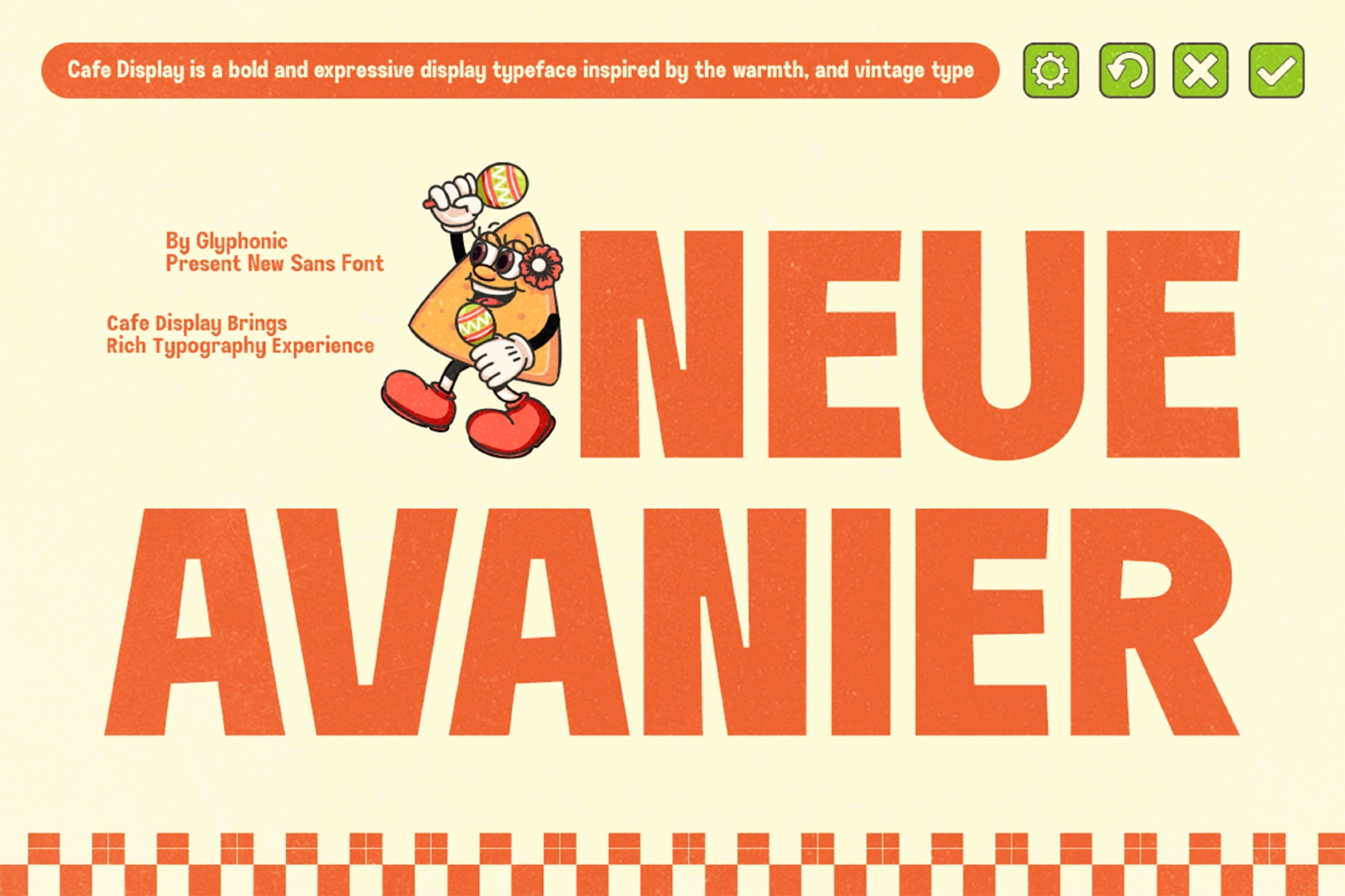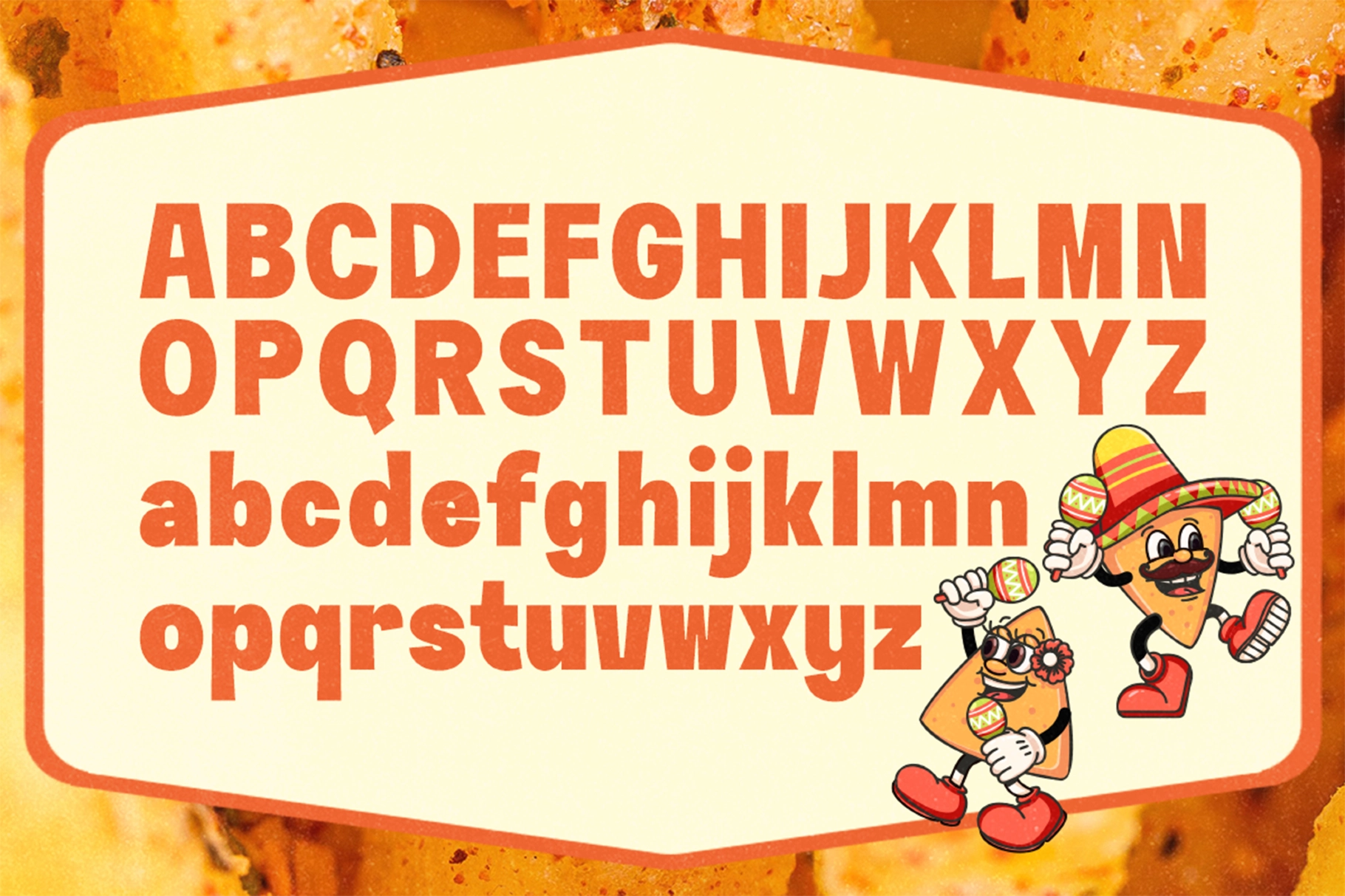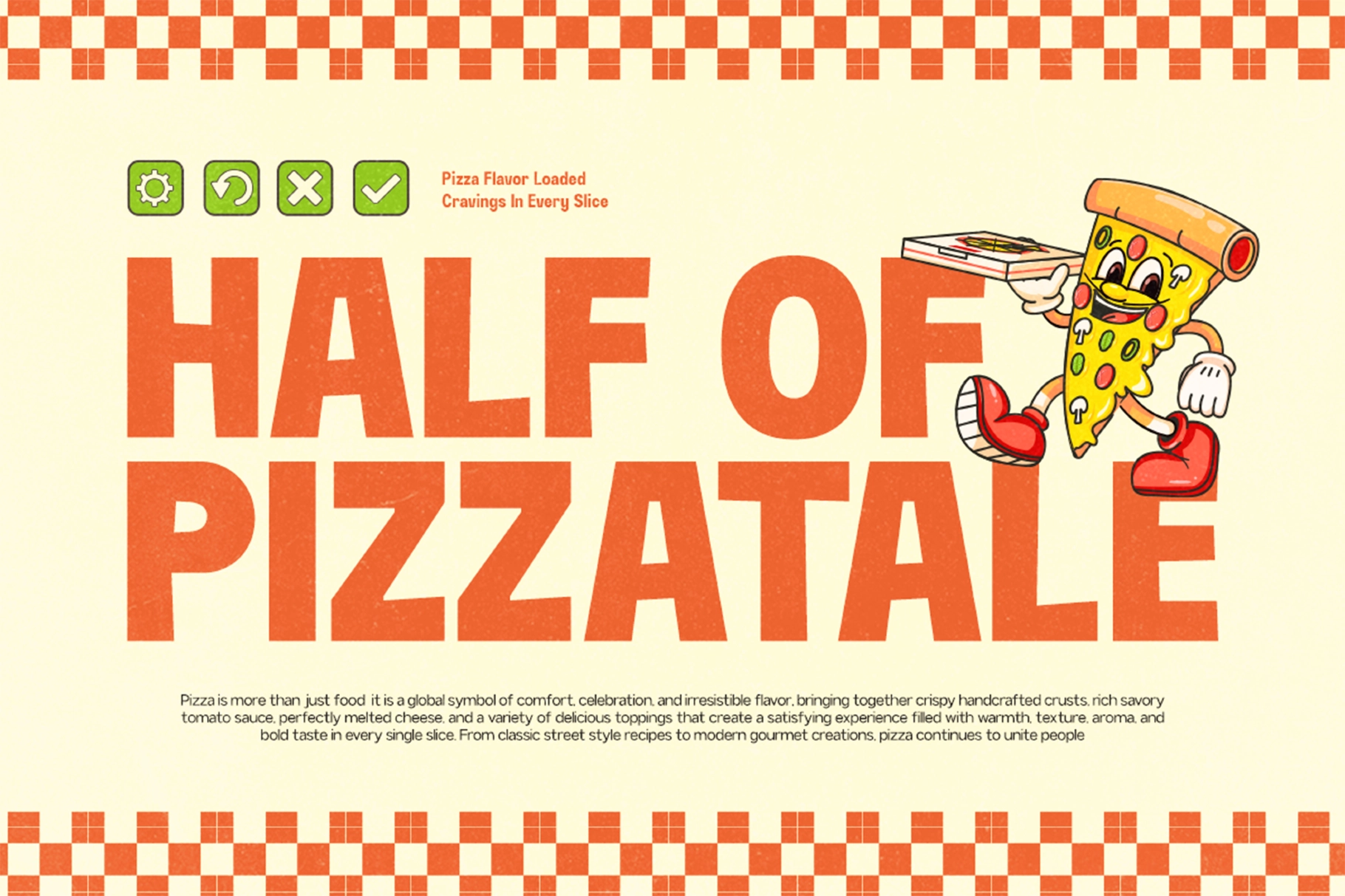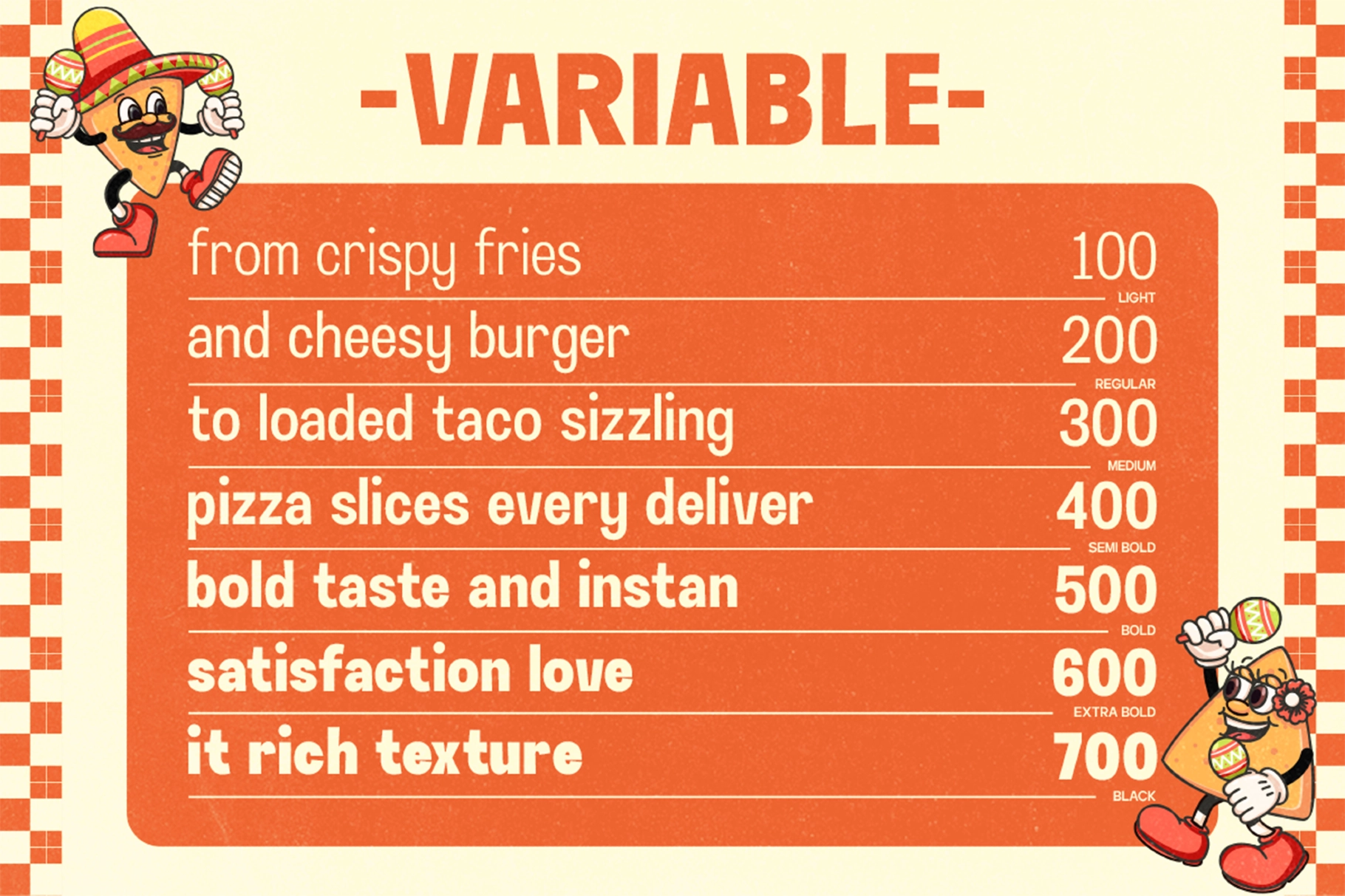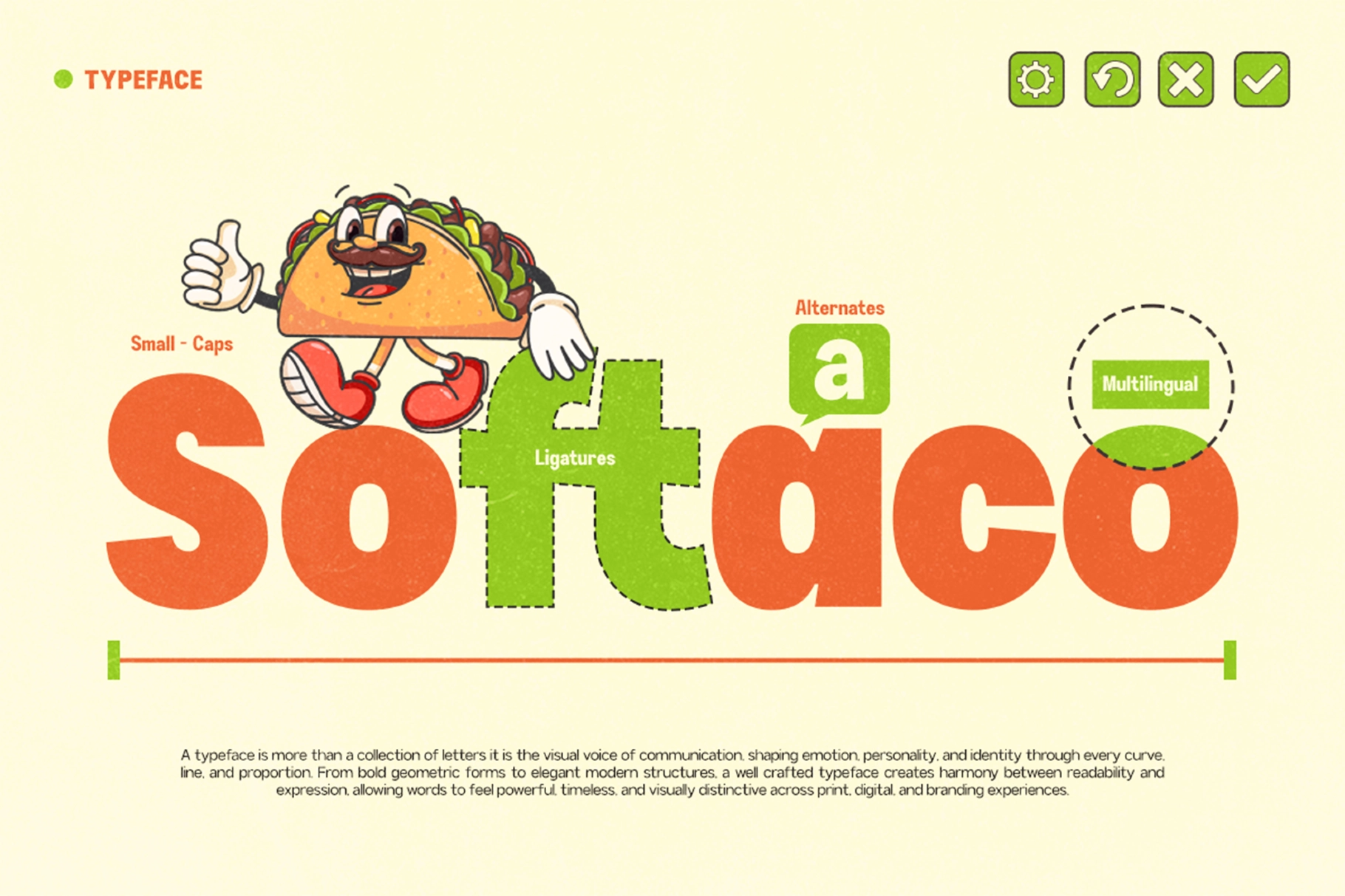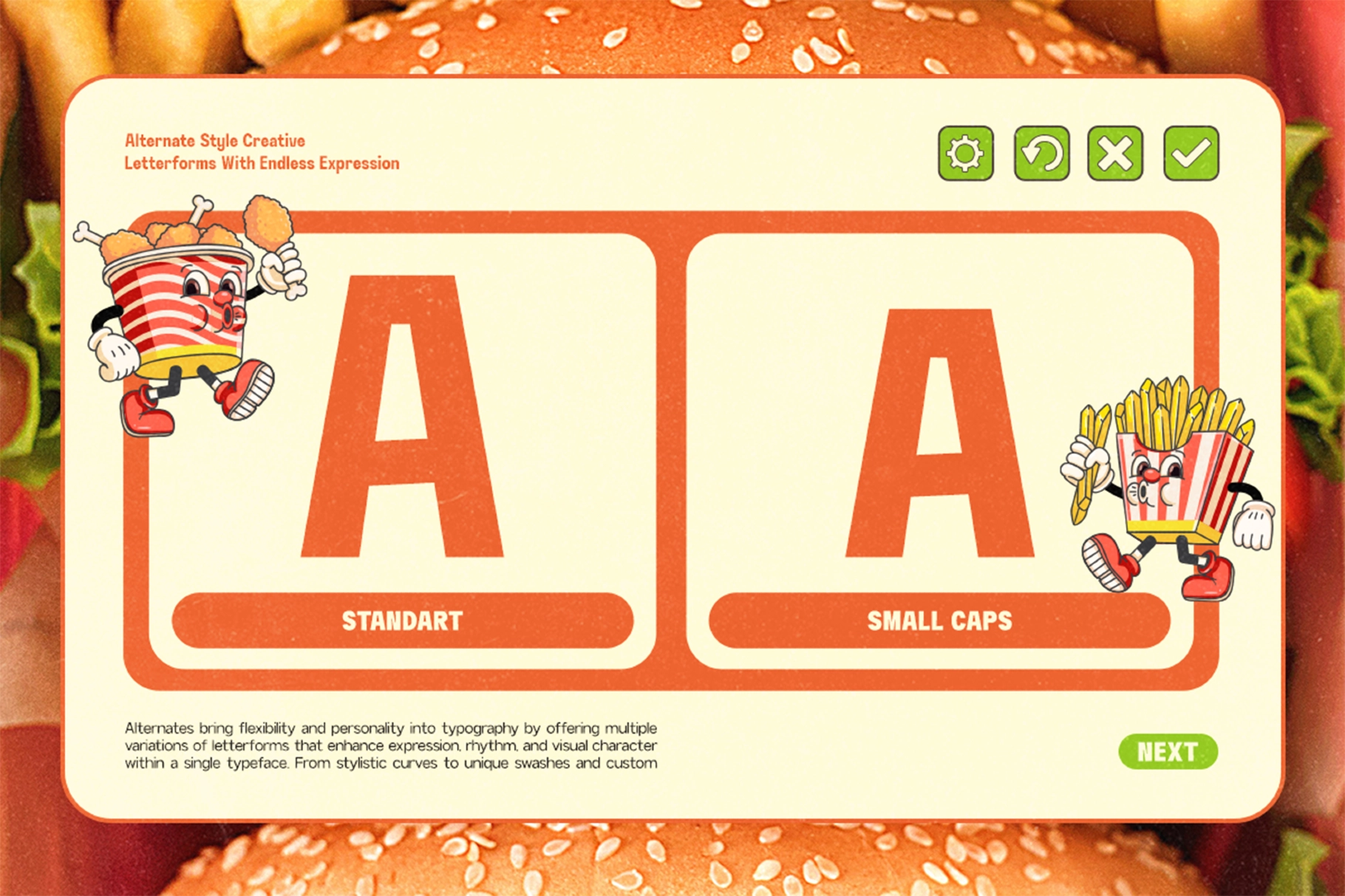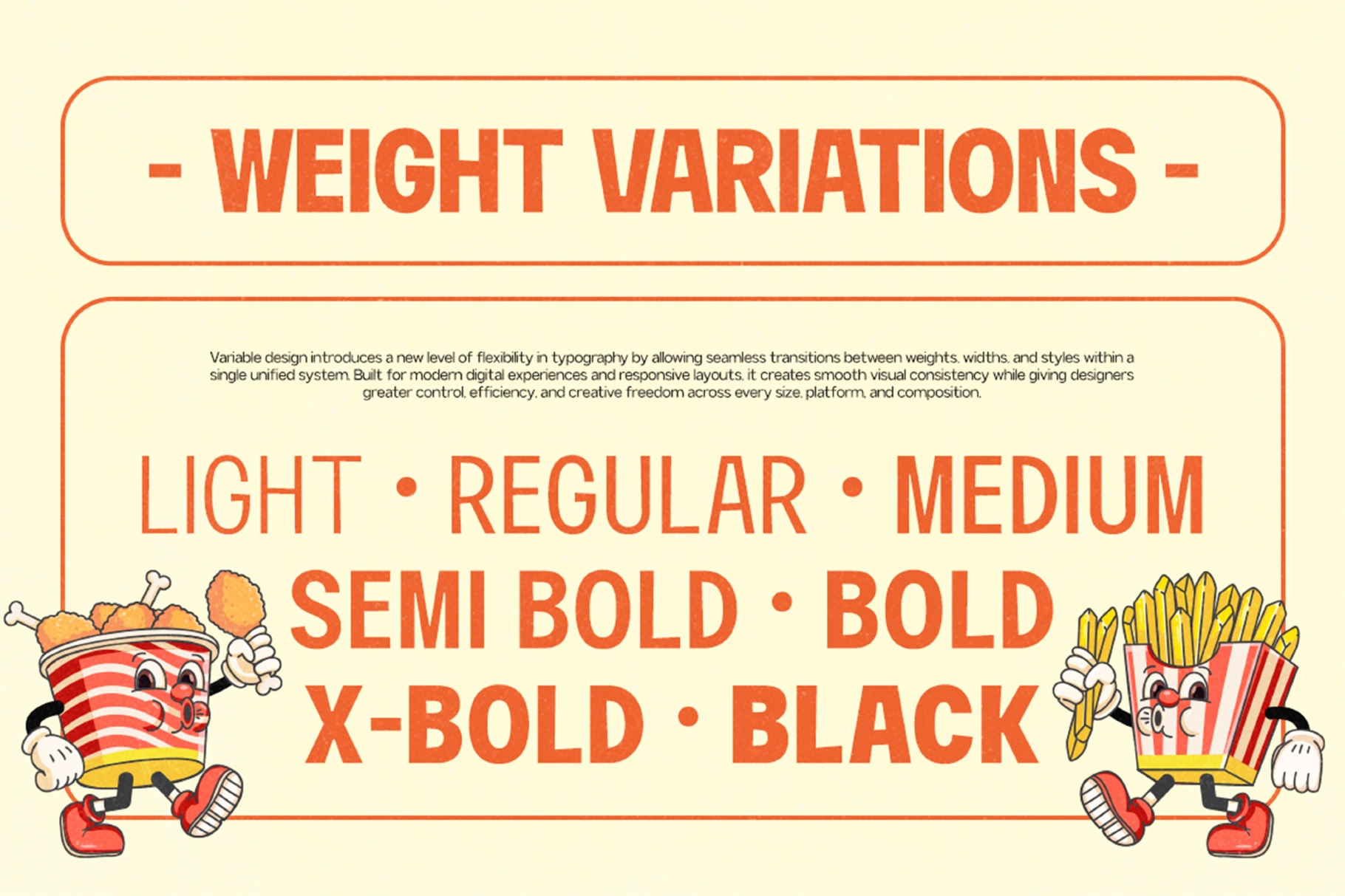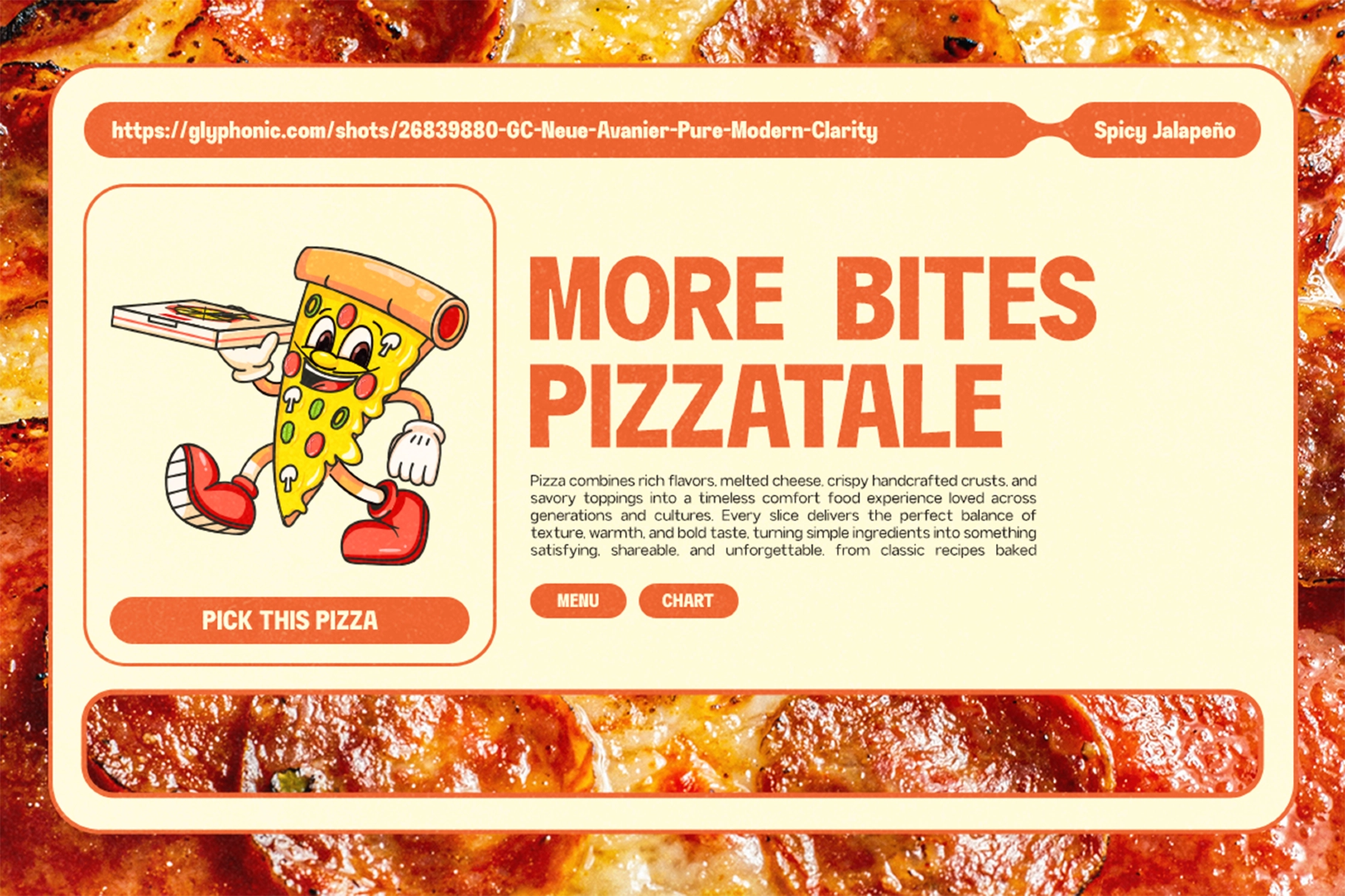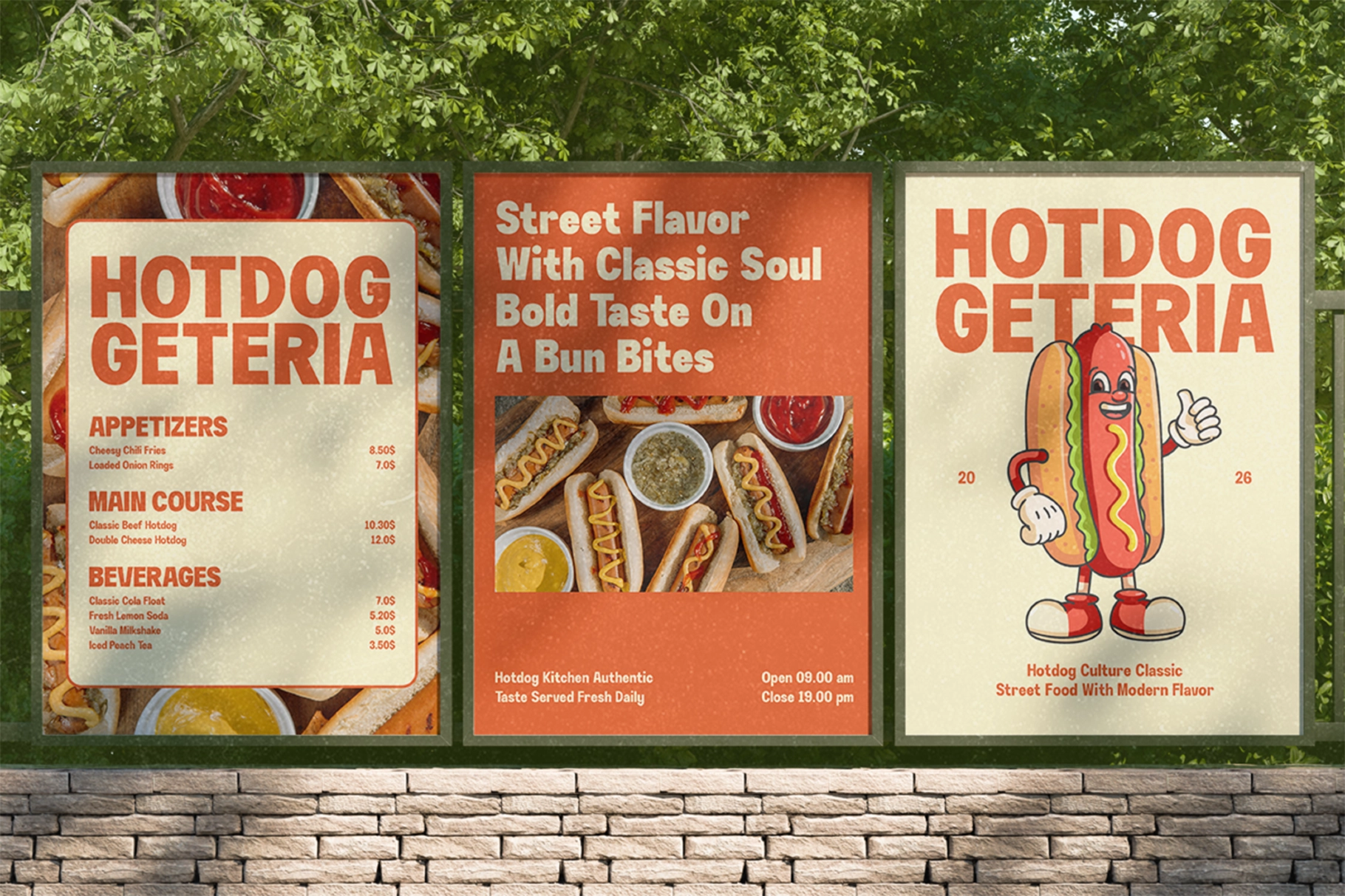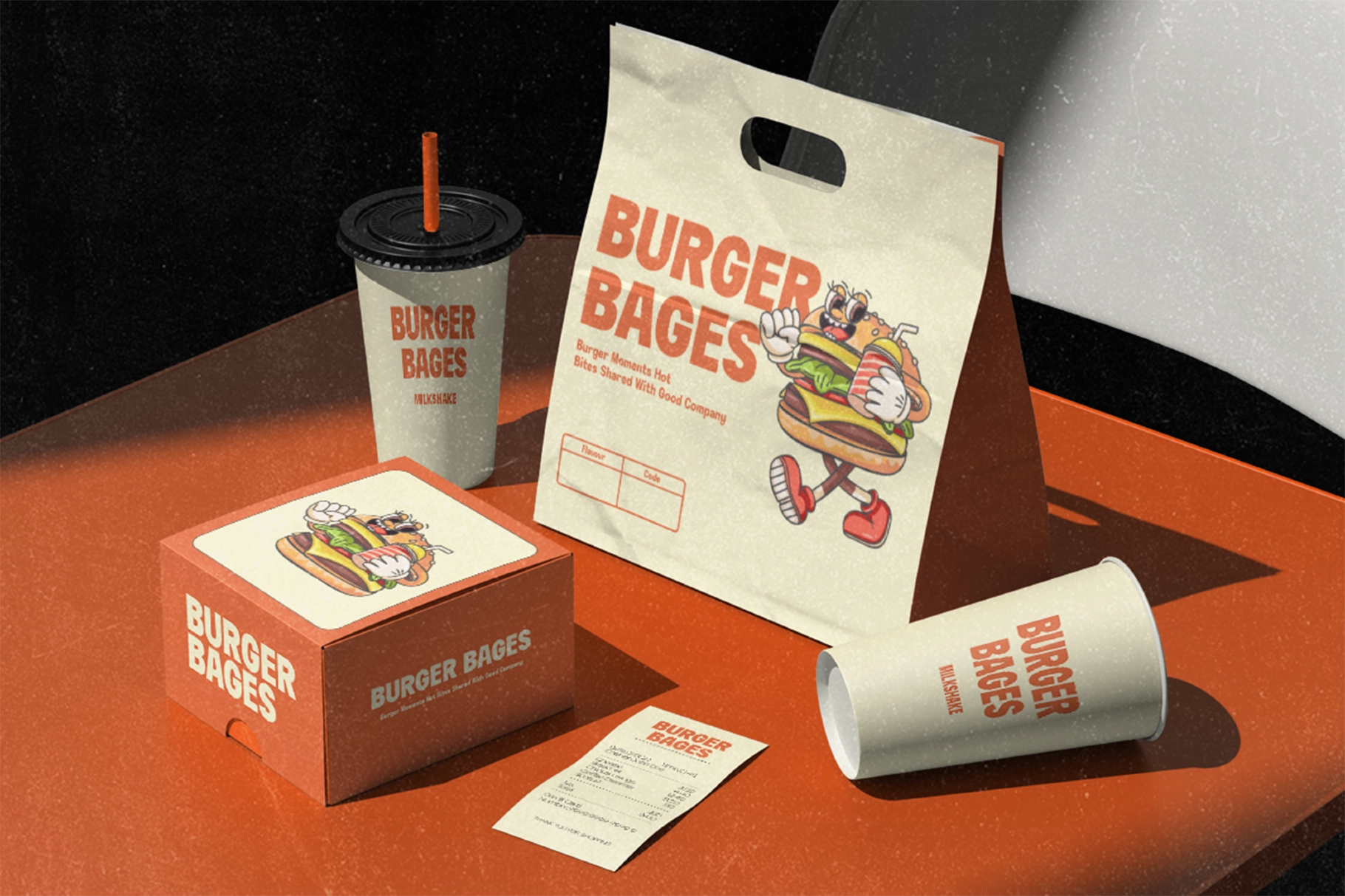
GC Neue Avenier - Bold Display Sans Font
Neue Avanier pulls its energy from vintage diner signage and hand-painted café marquees — thick, oversized letterforms with a geometric backbone and rounded corners that keep the weight friendly instead of heavy. This bold display sans font holds an even, confident stroke across every character, so headlines land with graphic force without turning stiff.
Neue Avanier works best set large, where the rounded weight and even rhythm carry a headline on their own. Use it for café and diner branding, food packaging, menu boards, pizza and snack logos, food truck signage, poster and flyer design, social media promos, drink labels, editorial food headlines, and event signage.
- Small caps, ligatures, and stylistic alternates;